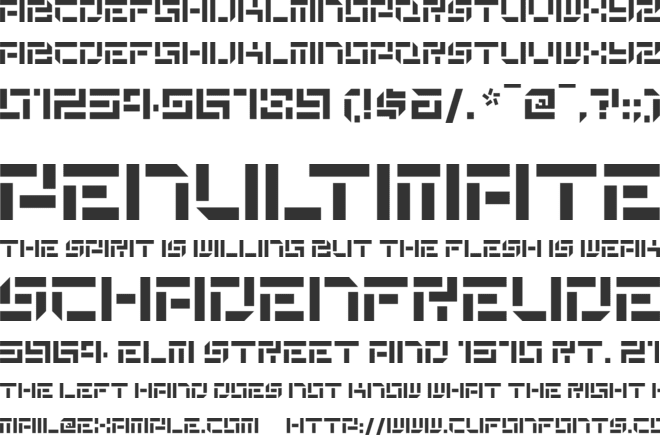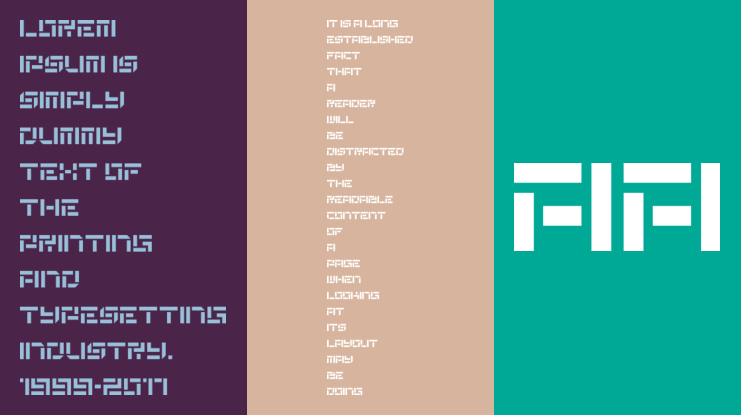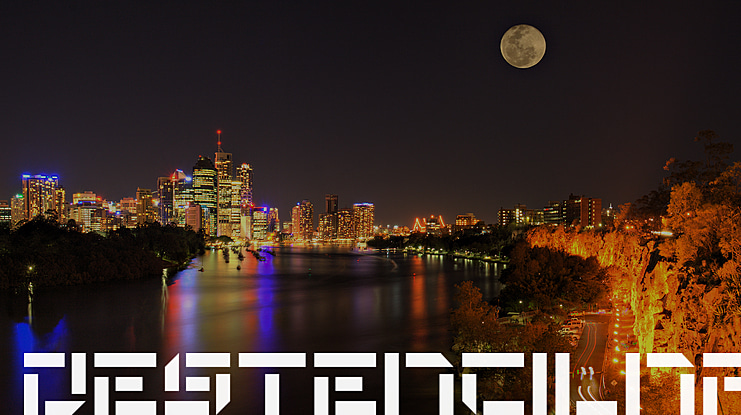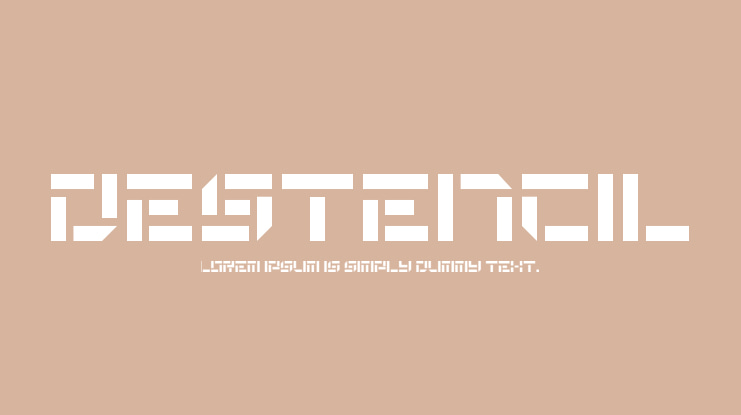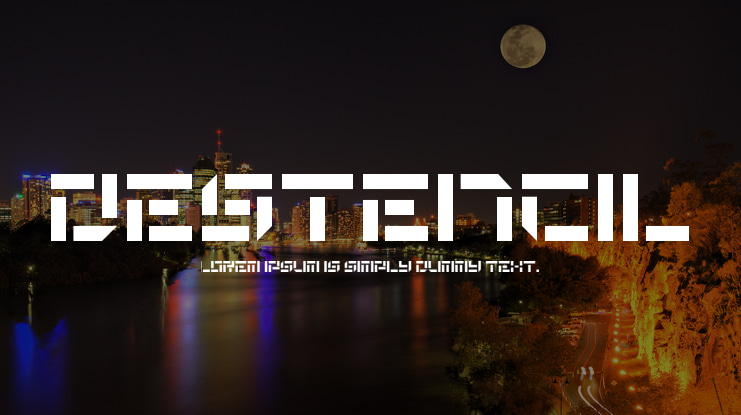
DeStencil Font
This semi-cryptic typeface was suggested by a 1917 poster by Dutch designer Vilmos Huszar. The subject was a De Stijl art exhibition, so the rationale behind the font’s name should not be difficult to figure out.